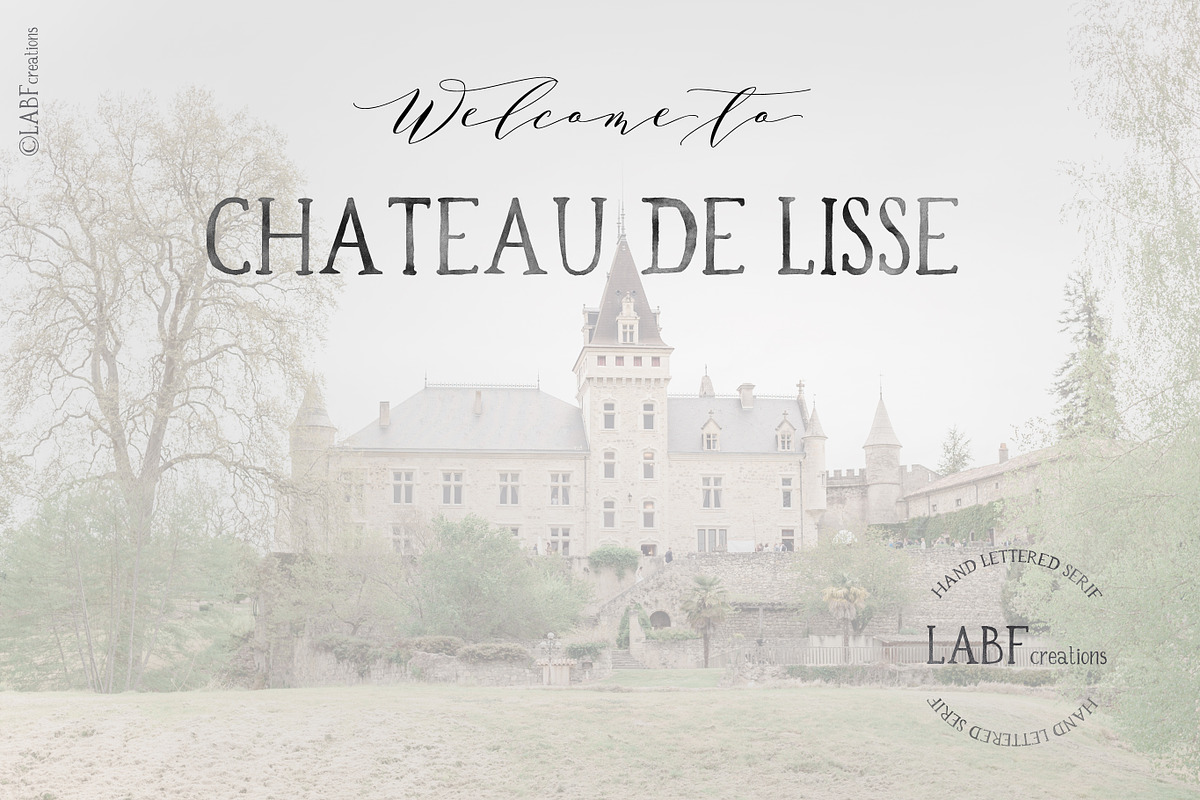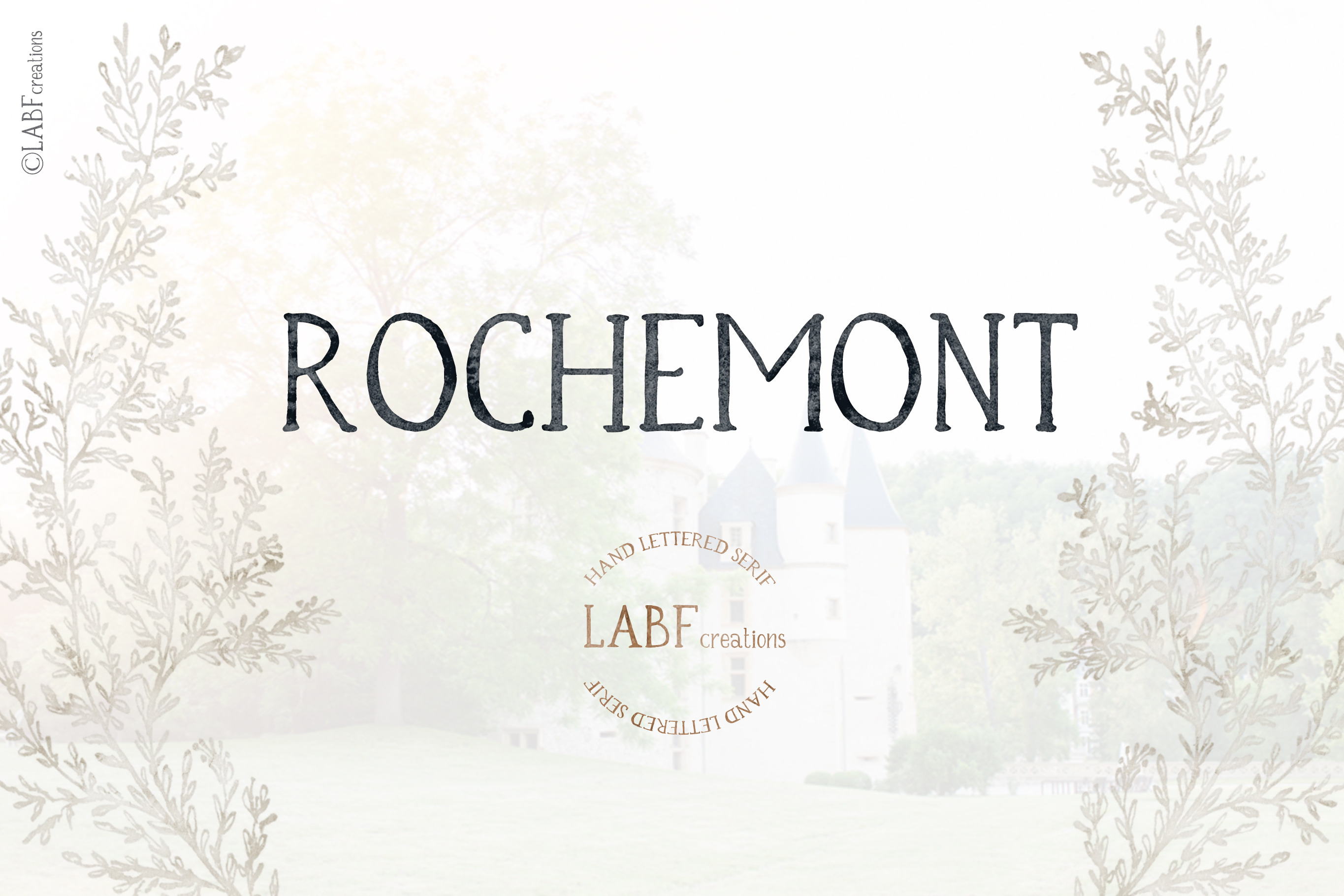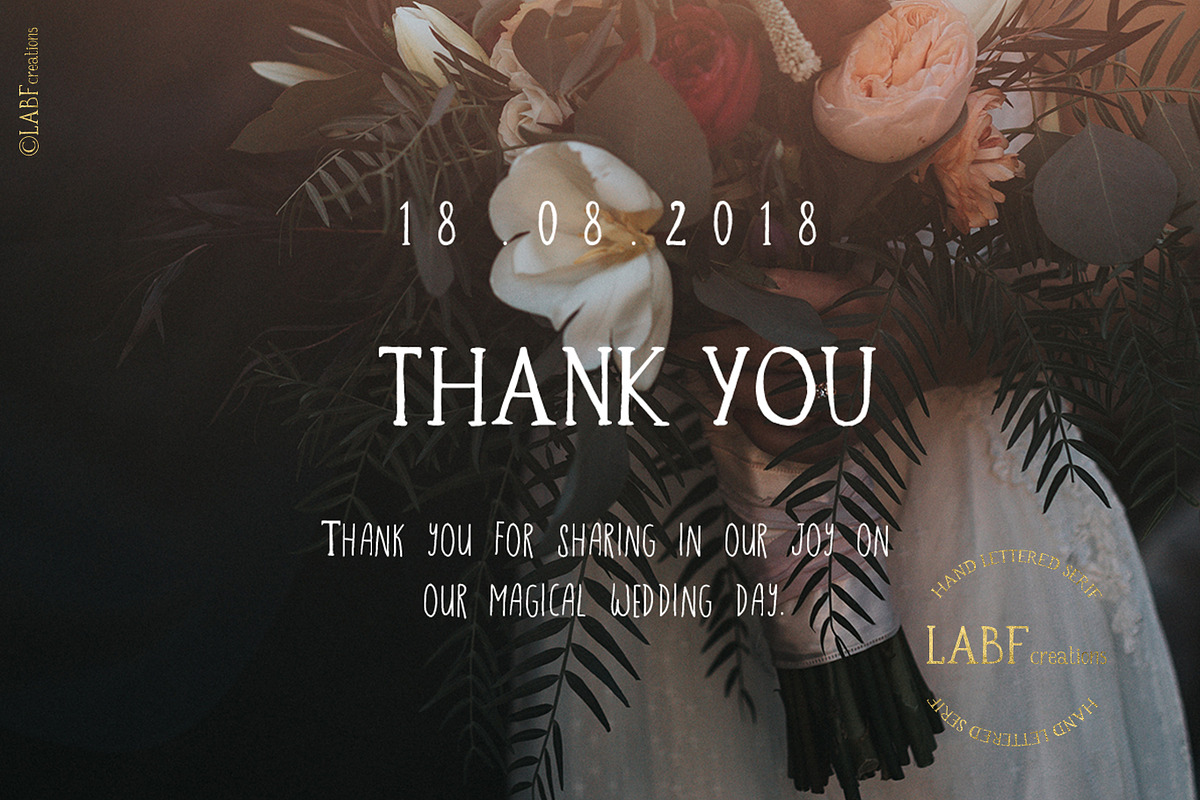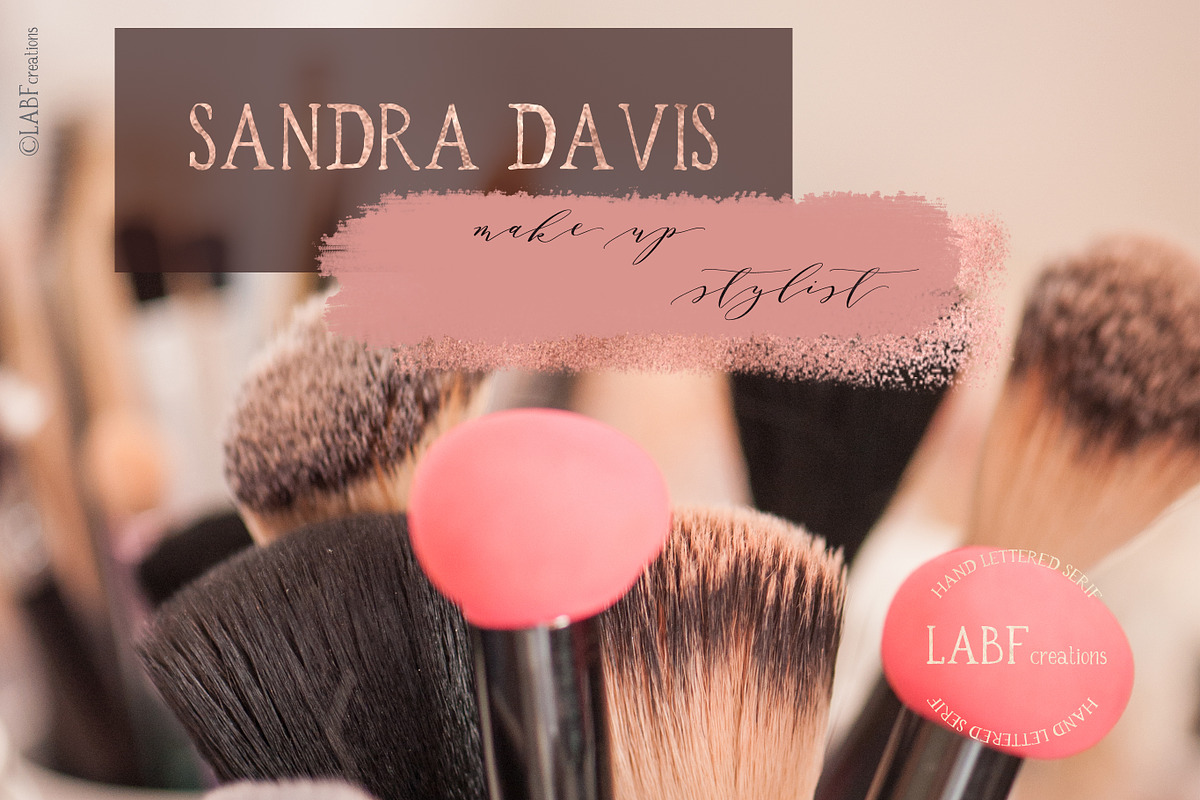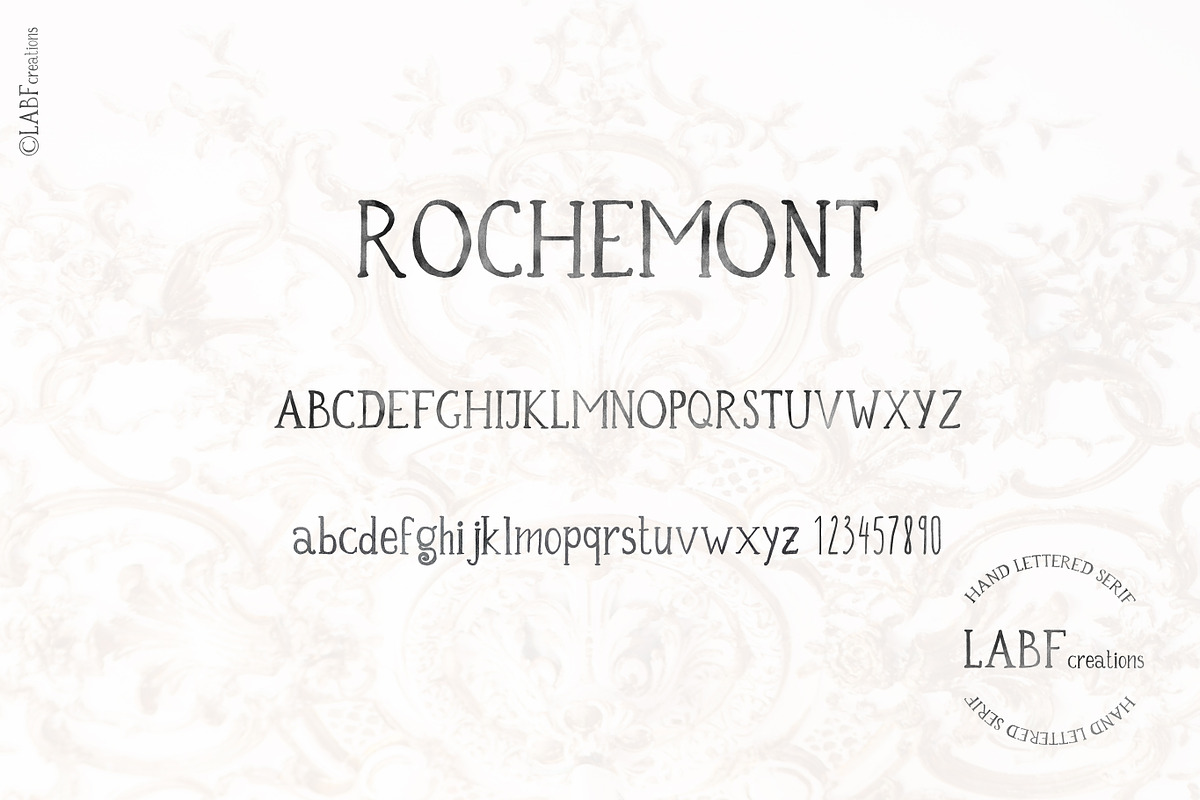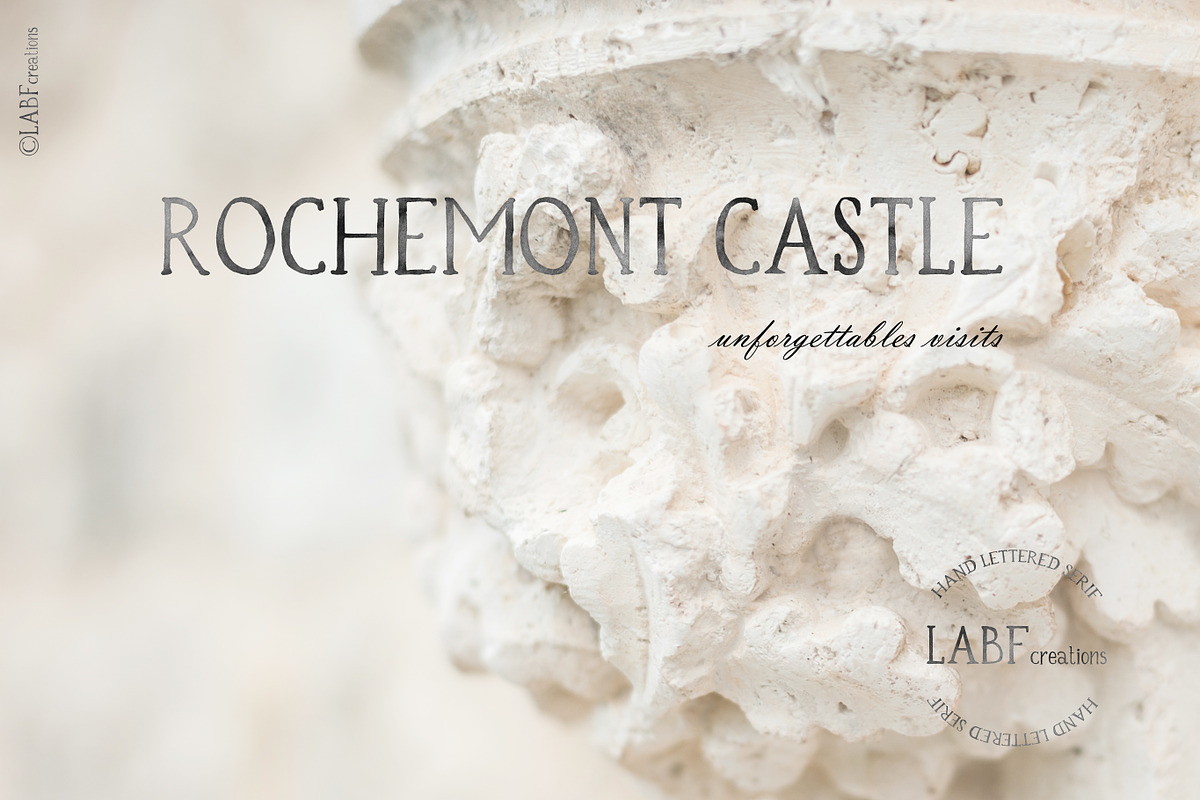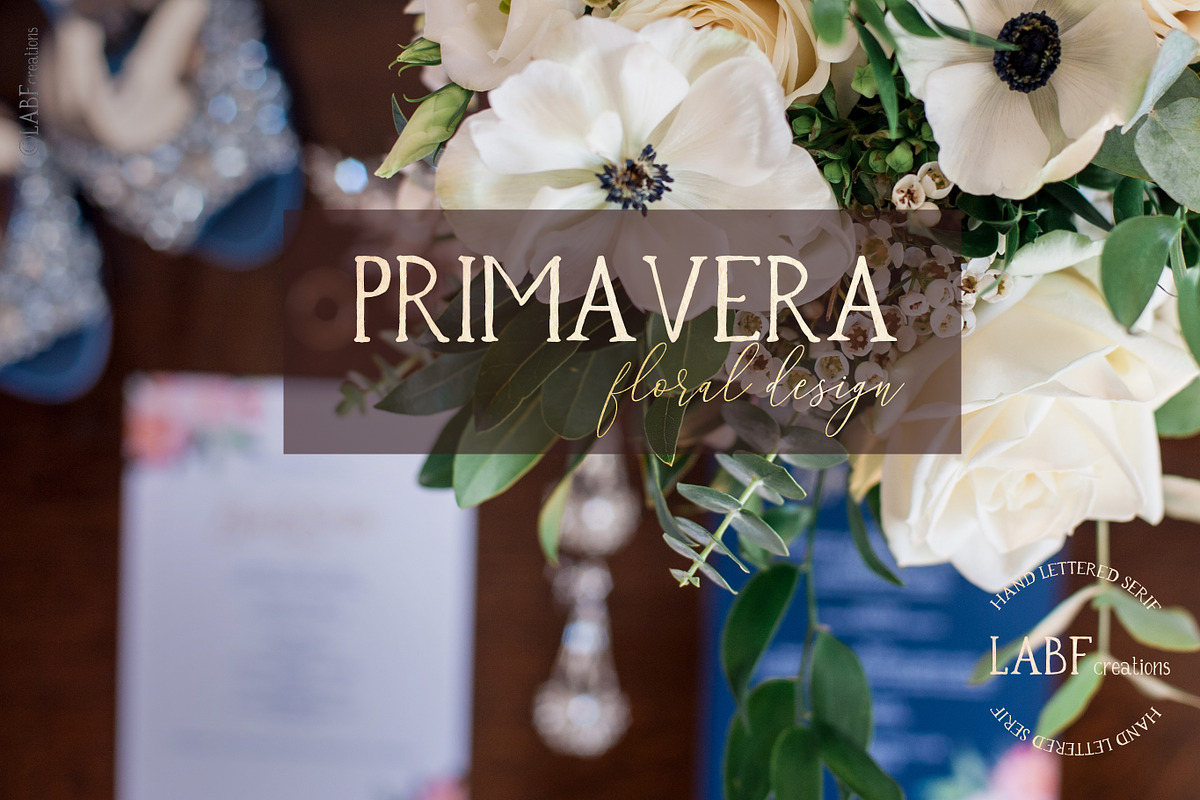
Rochemont Rustic Hand Written Font
Rochemont Serif font is ideal for creating logos and Brand Identities.
It works perfect for creating stylish logos, striking editorials, invitations, graphic quotes, and more.